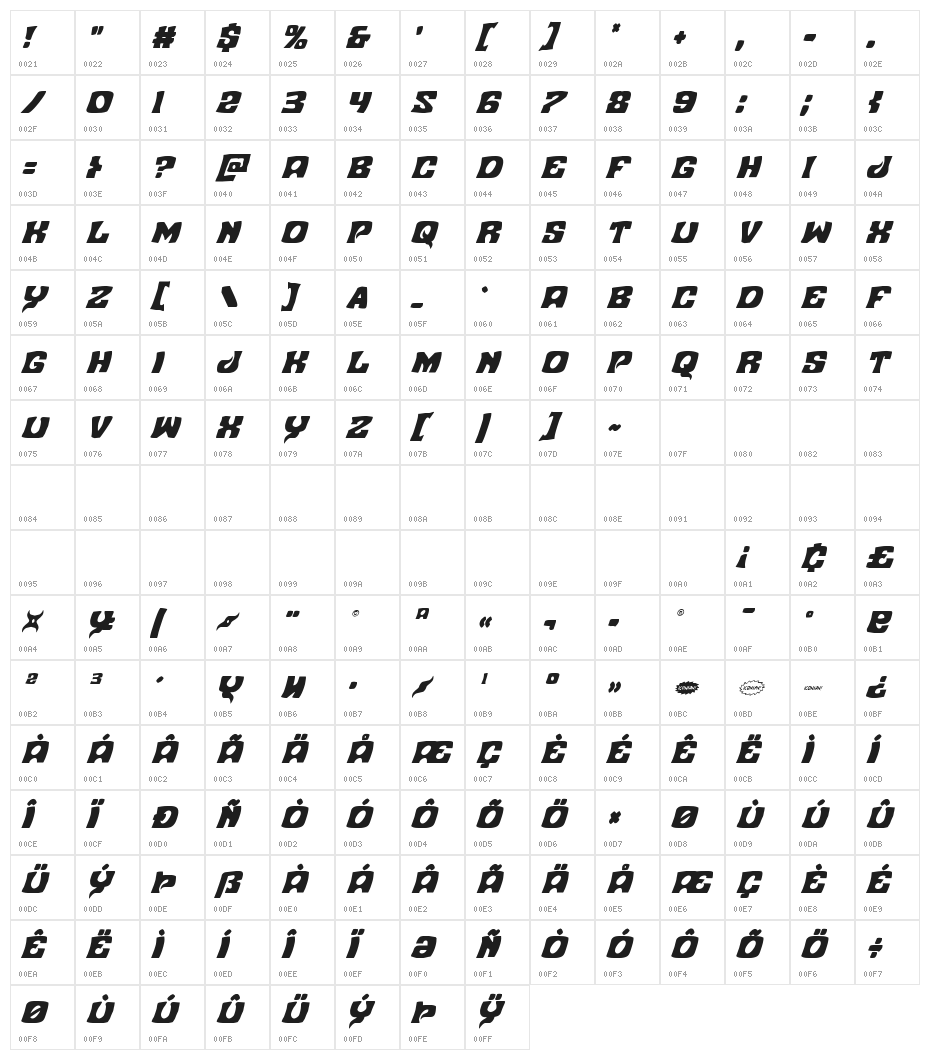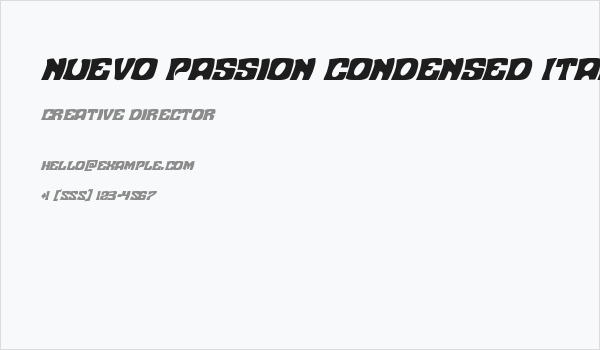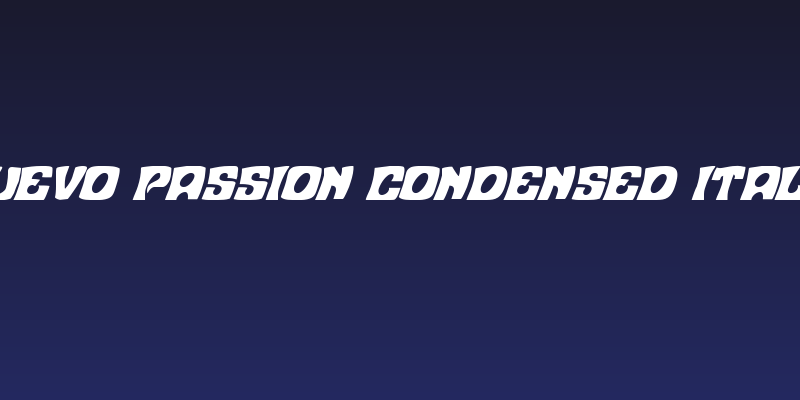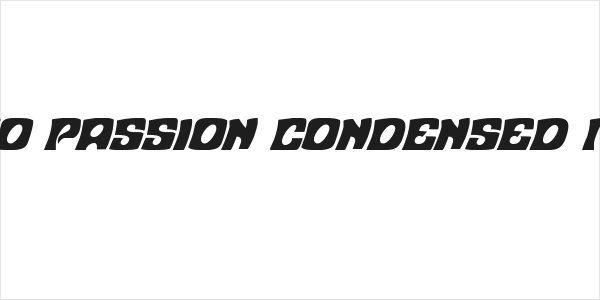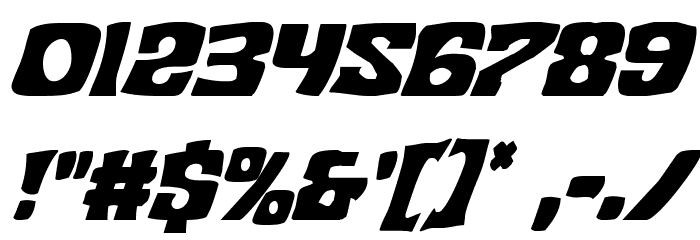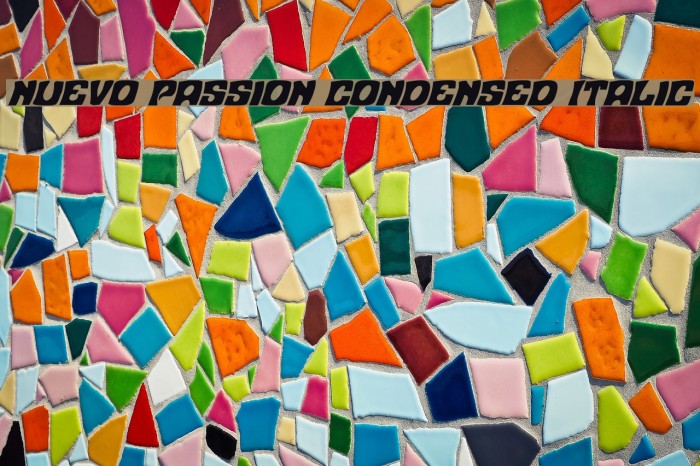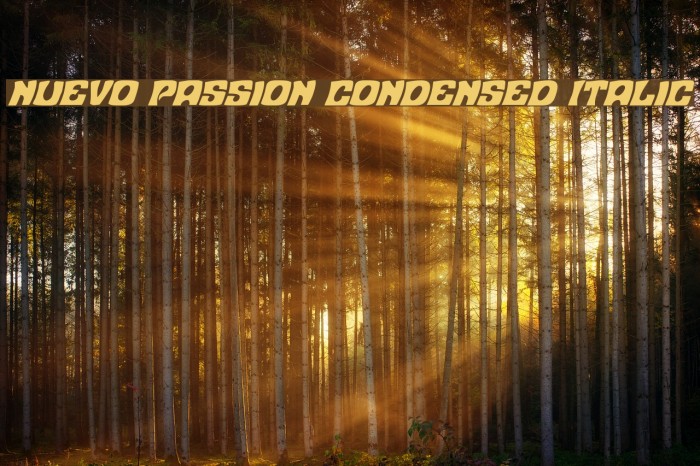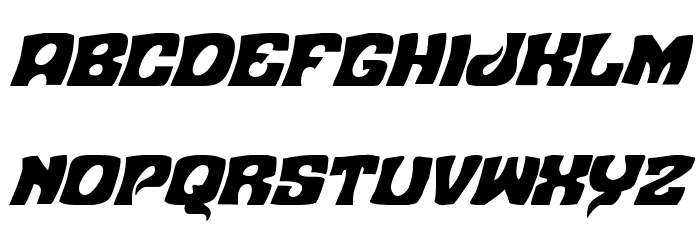
Nuevo Passion Condensed Italic Font
Nuevo Passion Condensed Italic Description
This font features a bold and dynamic style with a condensed and italicized form. The characters are robust and have a strong presence, making them ideal for attention-grabbing designs. The strokes are thick and consistent, creating a sense of power and movement. The angular cuts and sharp edges add a modern and edgy feel, while the italic slant enhances the sense of speed and urgency. The spacing between characters is tight, which contributes to the compact and impactful appearance. This font is well-suited for projects that require a bold statement and a contemporary aesthetic.
| Proposed Projects | Ideal for posters, headlines, branding, and advertising where a strong and modern impact is needed. |